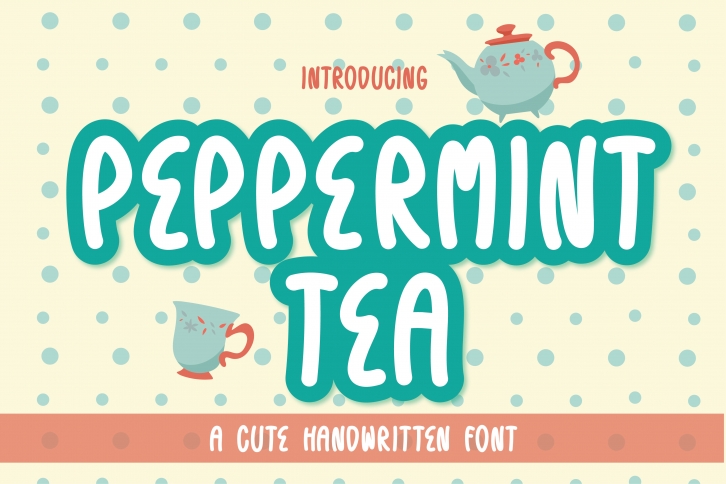
Peppermint Tea is a lovely handwritten font. Get creative with its charming style, and add it to all your inspired ideas. It looks stunning on wedding invitations, thank you cards, quotes, greeting cards, logos, business cards, or any other design that needs a handwritten touch.